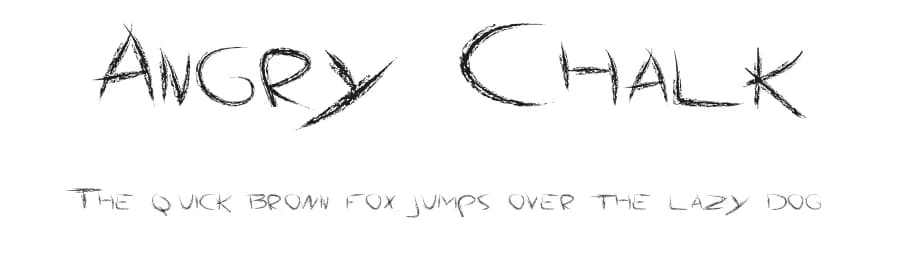
About Angry Chalk Font
Angry Chalk is a script & handwritten font designed by Jeronimo. It includes 74 glyphs, a regular weight, TTF (TrueType) format, and 89 languages. Angry Chalk is free to download; check the license details on this page before commercial use. Script & handwritten fonts like Angry Chalk work best for wedding invitations, greeting cards, signatures, and elegant branding.
Angry Chalk Font is a script font that shines as a display or heading face. Pair it with a clean sans-serif or serif font for body text β the contrast creates a clear hierarchy while the two styles stay balanced and easy to read.
Angry Chalk Font
Angry Chalk Font is a script handwritten typeface by Jeronimo, ideal for logos, invitations, branding, and creative projects.